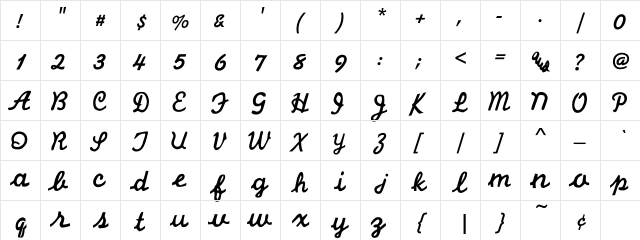
LHF Bounce Script Regular
Regular · Charles Borges for Letterhead Fonts Tom Kennedy for Letterhead Fonts ·
Design Context for LHF Bounce Script Typeface
LHF Bounce Script brings a calligraphic fluidity to the page — its connecting strokes and expressive curves give it an unmistakably human quality.
Font Pairing: Combine LHF Bounce Script with a simple geometric sans for maximum contrast — the tension between flowing curves and clean structure is a classic typographic pairing.
Pro Tip: Use LHF Bounce Script for short runs of text — names, titles, or taglines. Extended body copy in script faces tires the eye quickly.